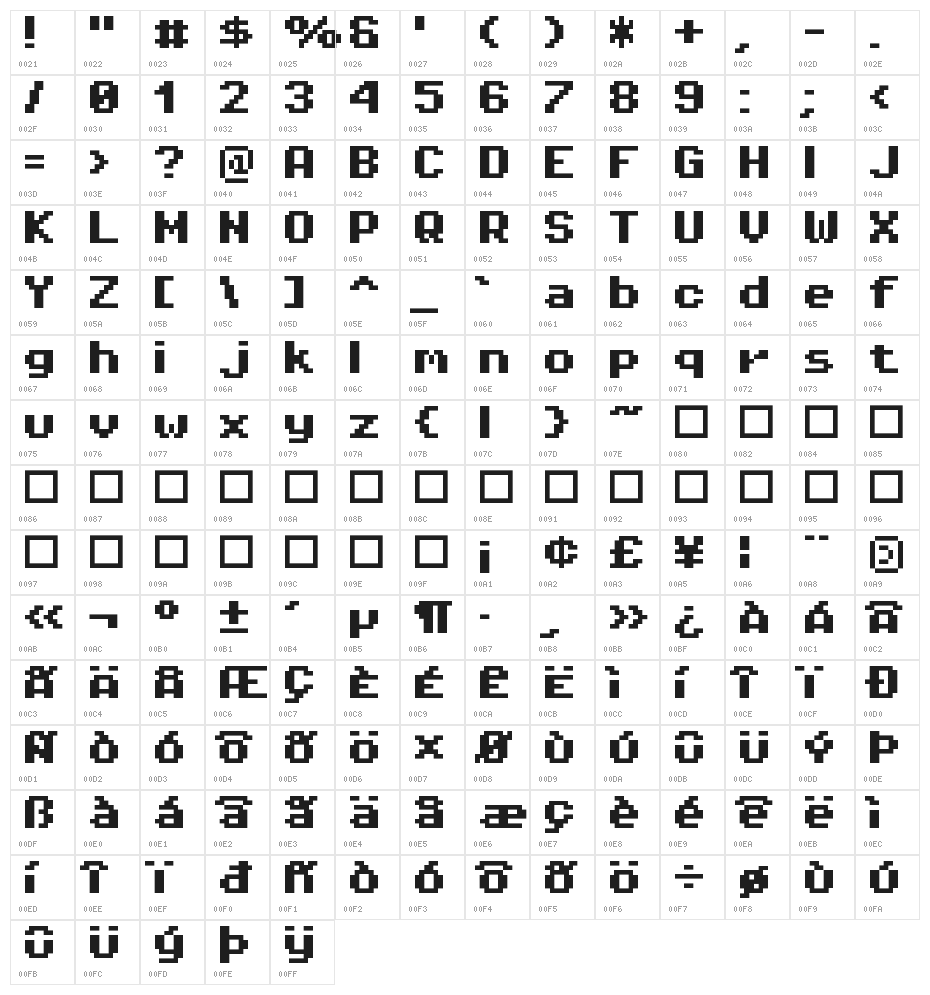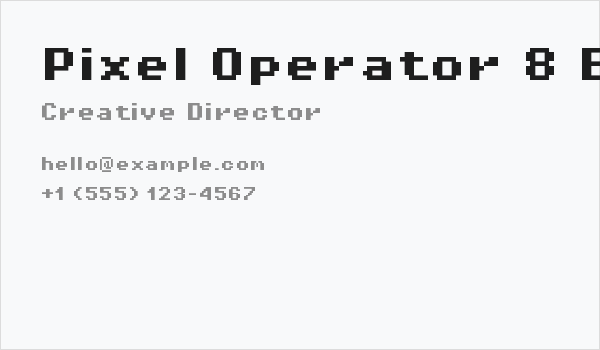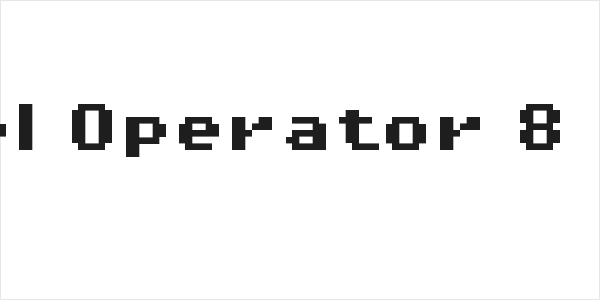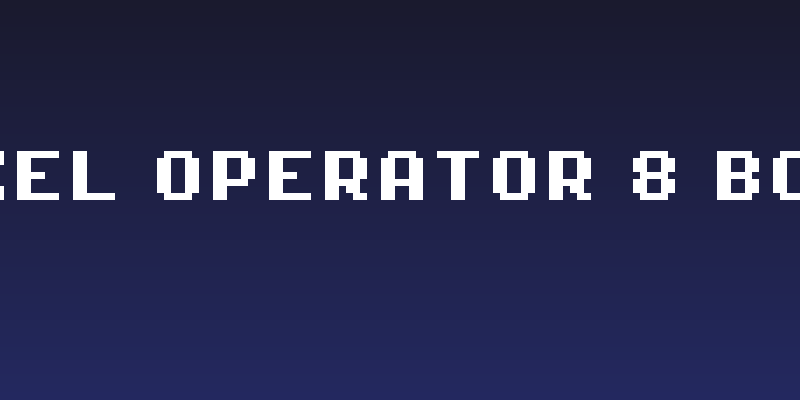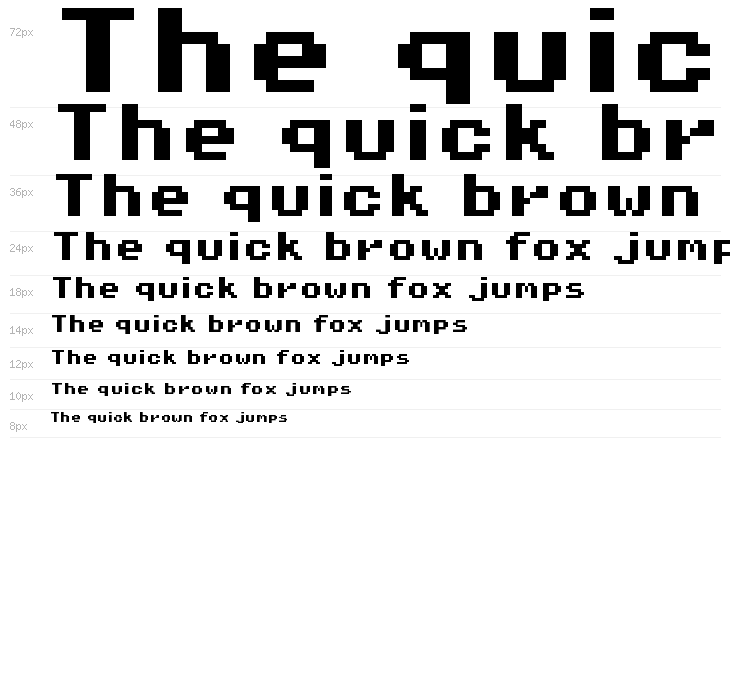
Pixel Operator 8 Bold Font
Pixel Operator 8 Bold Description
This font embodies a classic pixelated style reminiscent of early digital displays and video games. Each character is constructed with a grid-like precision, offering a nostalgic yet timeless appeal. The bold weight enhances its visibility, making it ideal for digital interfaces where clarity is paramount. The uniformity in character width and height contributes to its monospaced nature, ensuring consistent alignment and readability. Its geometric simplicity and blocky appearance evoke a retro aesthetic, perfect for projects that aim to capture the essence of vintage computing or gaming environments.
Overall StyleVintage
Use CaseHeadlines, Logos, Digital interfaces
Proposed ProjectsIdeal for retro video games, digital displays, tech-themed designs, and nostalgic branding.